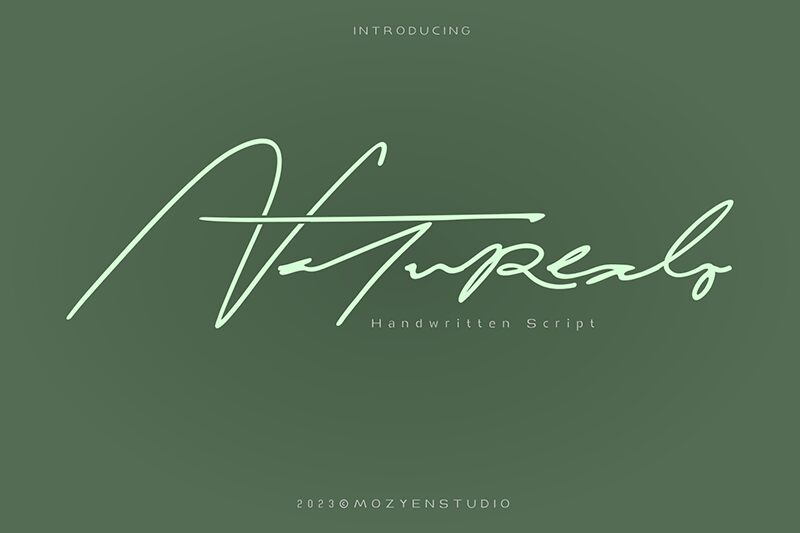
Naturealo
Naturealo font is a handwritten expanded typeface with a light and elegant style. Designed by Mozyen Studio, it is inspired by signature handwriting that combines an expressive nature with flowing lines. The font has an artistic flair and gives a personal touch that could improve all your scenes.
Use Naturealo in classic invitations, app covers, product packaging, websites, watermarks, quotes, business cards, book covers and print publications. It can also be used in branding projects for logos and identity design needs that reflect the importance of formalities.
Designed by Muhamad Ali H.,designer from Mozyen Studio.